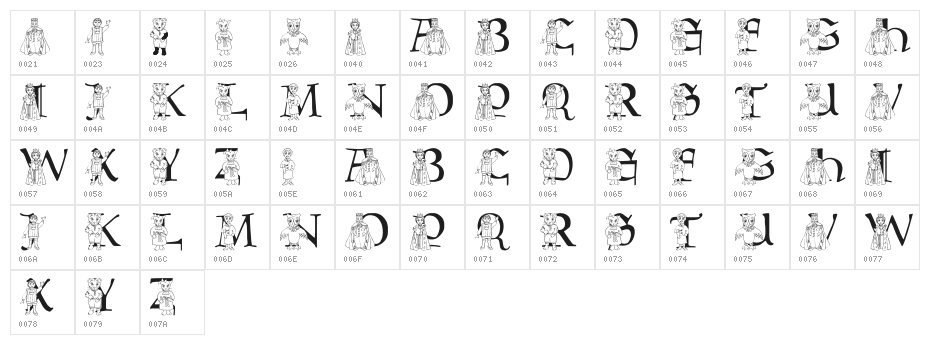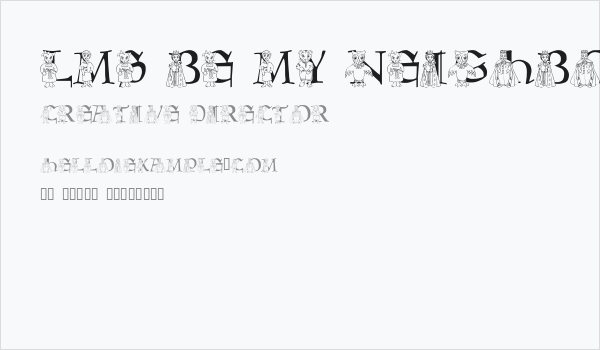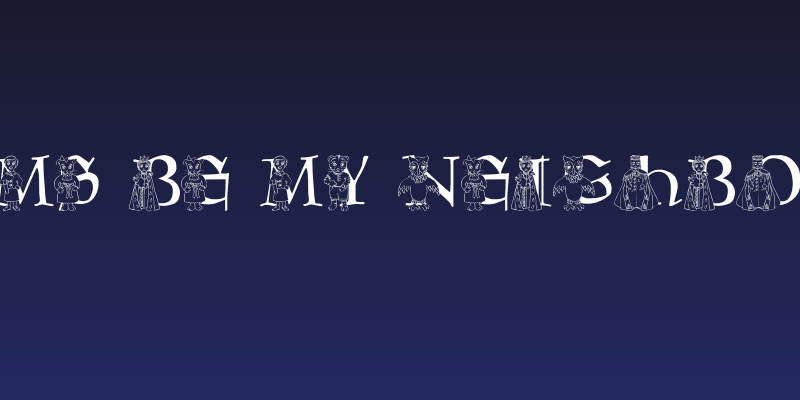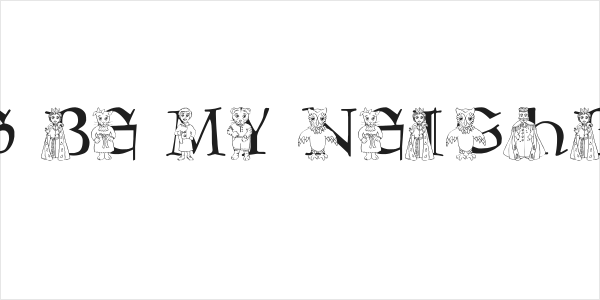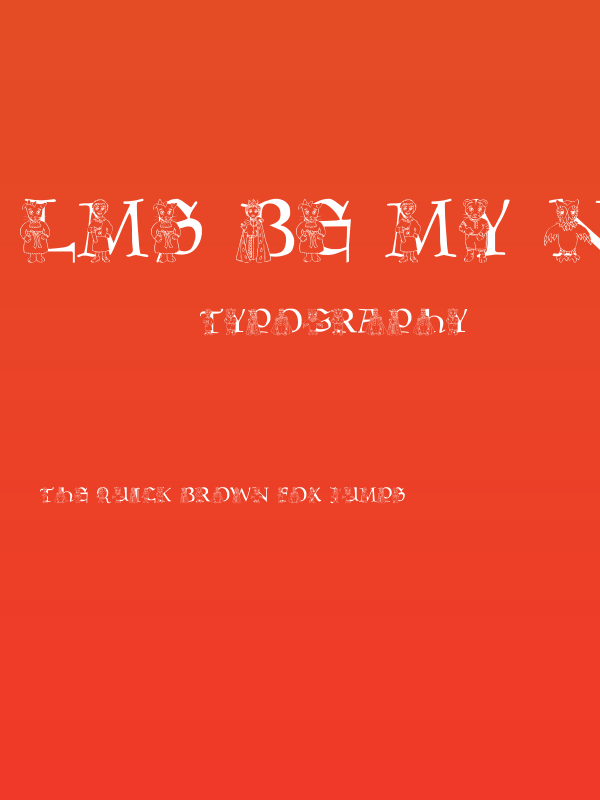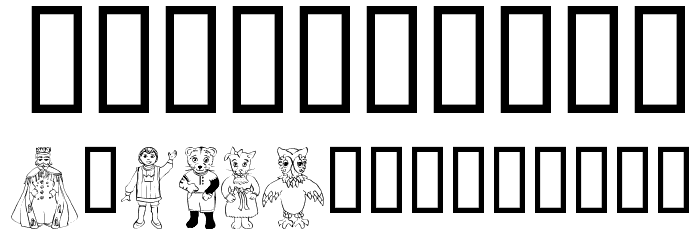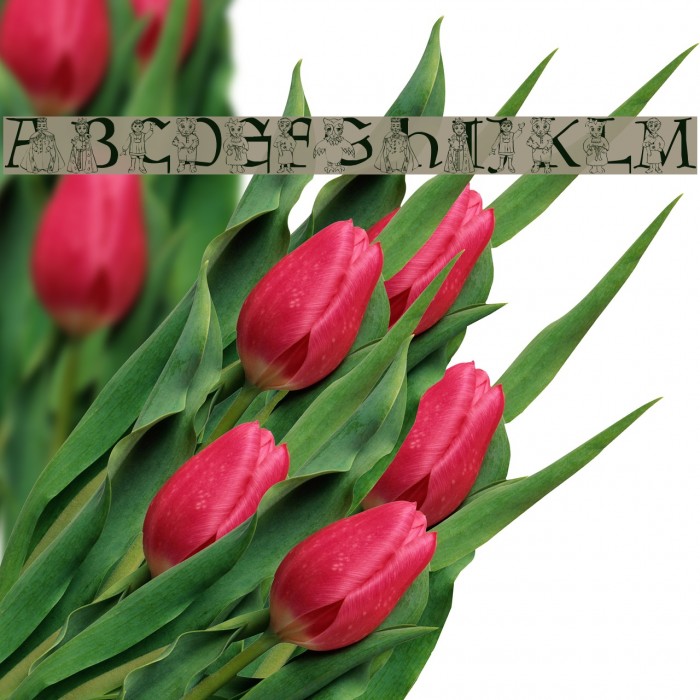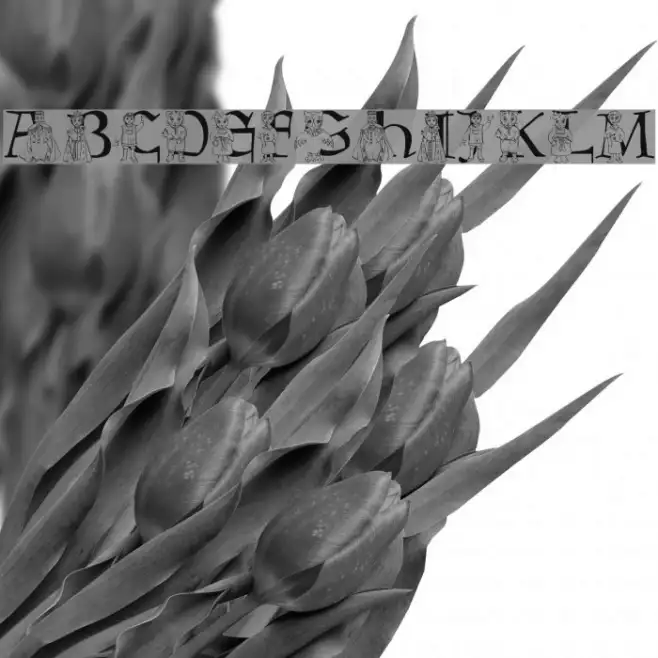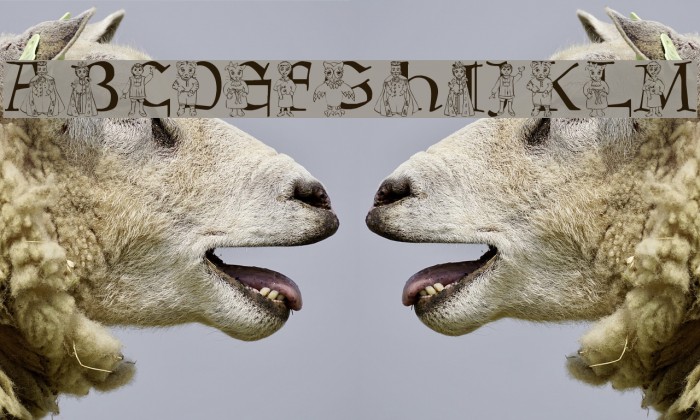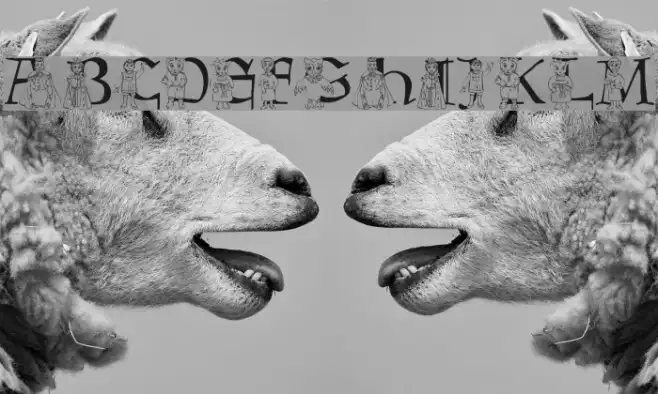
LMS Be My Neighbor Font
LMS Be My Neighbor Description
This whimsical and playful font features characters from a beloved children's show integrated into each letter. The uppercase and lowercase letters are adorned with illustrations of familiar characters, adding a unique and nostalgic touch. The font combines traditional serif elements with decorative illustrations, creating a charming and engaging visual experience. The characters are detailed and expressive, making each letter a small piece of art. The numbers and special characters maintain a consistent style, ensuring a cohesive look throughout.
| Proposed Projects | Ideal for children's books, educational materials, themed party invitations, and nostalgic merchandise. |